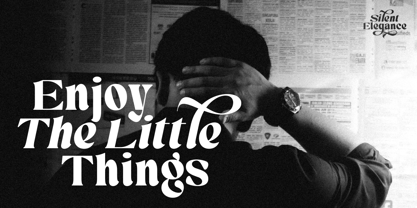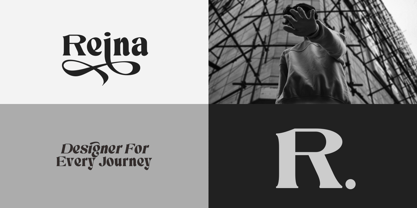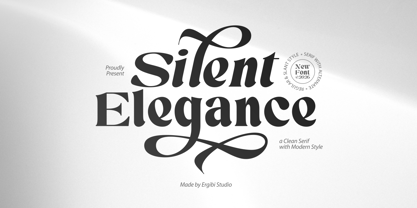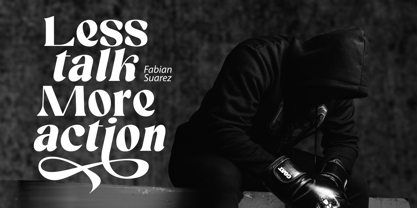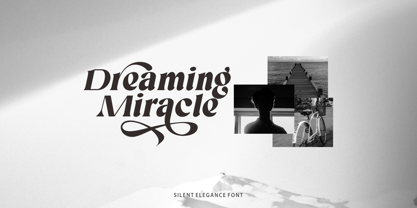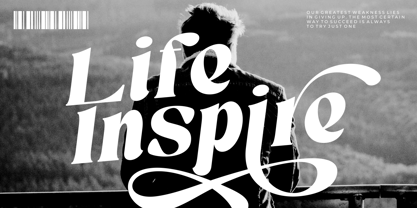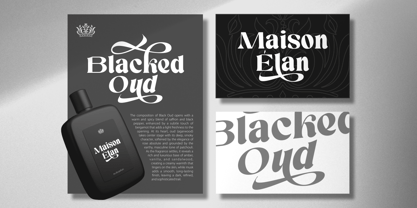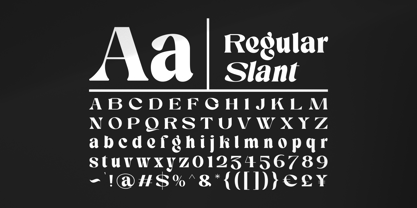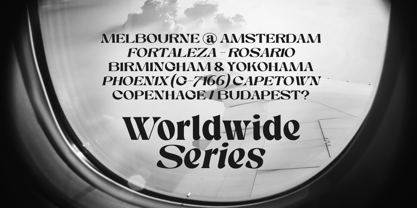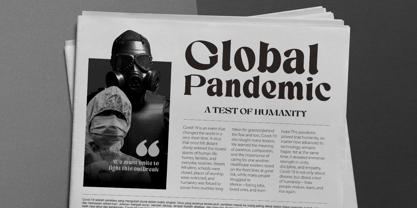
Silent Elegance
La famille de polices Silent Elegance a été conçue par Riyadh Rahman et publiée par Ergibi Studio. Silent Elegance contient 2 styles et options de package familial. En savoir plus sur cette famille
Silent Elegance is a modern serif typeface created to bring a quiet sense of luxury and refinement into your designs. It blends classic serif structure with soft contemporary touches, resulting in a look that feels timeless yet fresh. Silent Elegance is designed to be versatile — it can look clean and minimal in one layout, yet expressive and stylish in another, depending on how you use it. Carefully crafted letterforms, balanced proportions, and graceful alternate characters give the font a natural flow, making it perfect for logos, branding, editorials, fashion visuals, packaging, and any project that needs a touch of sophistication without feeling overly formal. if you have any questions, don’t hesitate to contact us Ergibi Studio